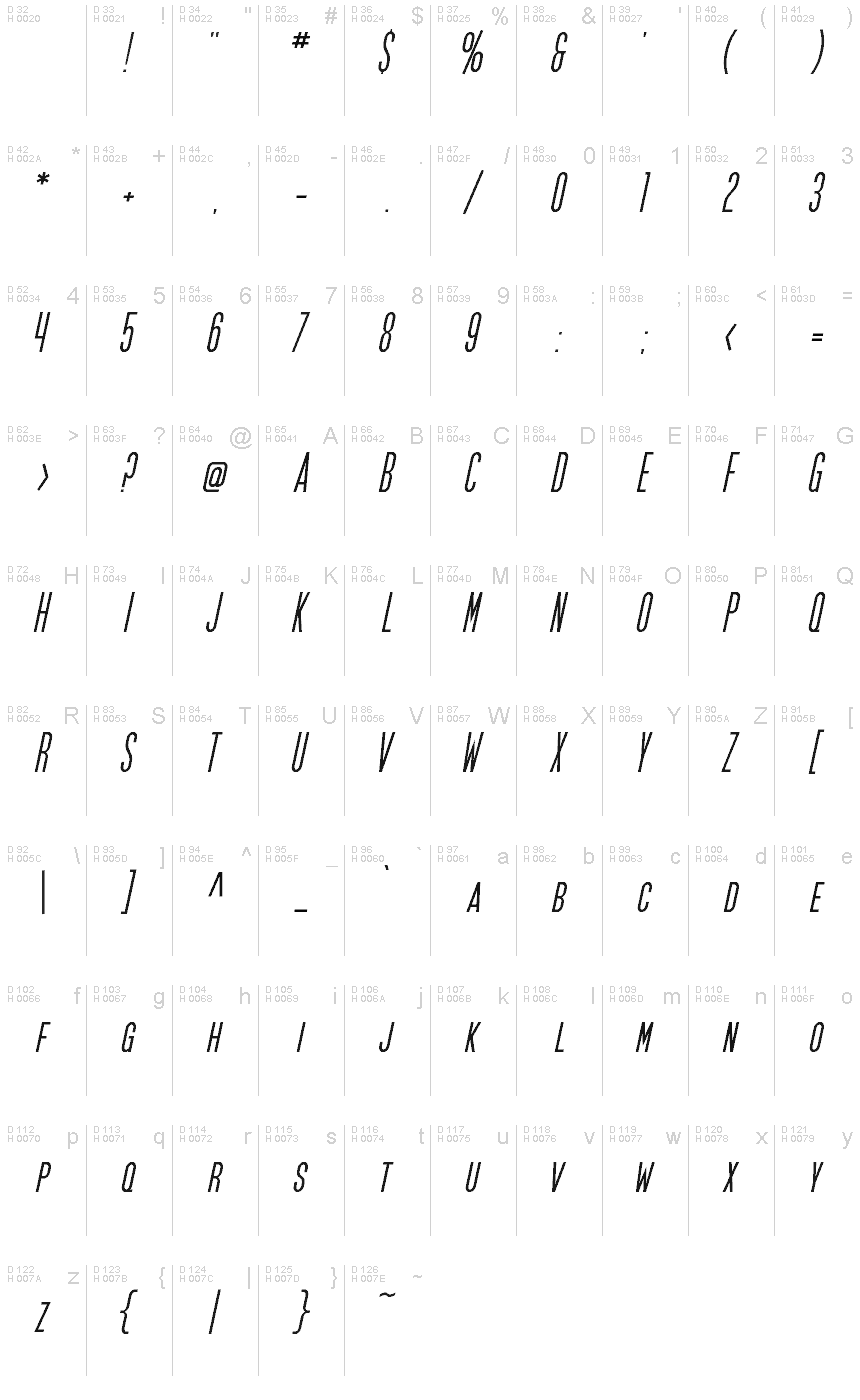
SF Movie Poster Oblique
SF Movie Poster Oblique, a striking typeface from the SF Movie Poster family, brings forth a dynamic blend of modernity and functionality. Crafted by ShyFonts Type Foundry, this sans serif font boasts a semi-light weight paired with an extra-condensed width that commands attention while providing utmost readability.
With its oblique stance, SF Movie Poster Oblique exudes motion and forward-thinking energy. Its sleek lines and compact lettering make it an ideal choice for impactful headlines and statements where space is at a premium yet clarity cannot be compromised.
The aesthetic appeal of this font lies in its clean versatility—it can effortlessly transition from the silver screen's grandeur to the practical needs of print and digital media. Whether used in movie marketing materials, minimalist poster designs or tech-oriented presentations, SF Movie Poster Oblique stands out with an understated elegance that elevates creative projects to new heights.
With its oblique stance, SF Movie Poster Oblique exudes motion and forward-thinking energy. Its sleek lines and compact lettering make it an ideal choice for impactful headlines and statements where space is at a premium yet clarity cannot be compromised.
The aesthetic appeal of this font lies in its clean versatility—it can effortlessly transition from the silver screen's grandeur to the practical needs of print and digital media. Whether used in movie marketing materials, minimalist poster designs or tech-oriented presentations, SF Movie Poster Oblique stands out with an understated elegance that elevates creative projects to new heights.